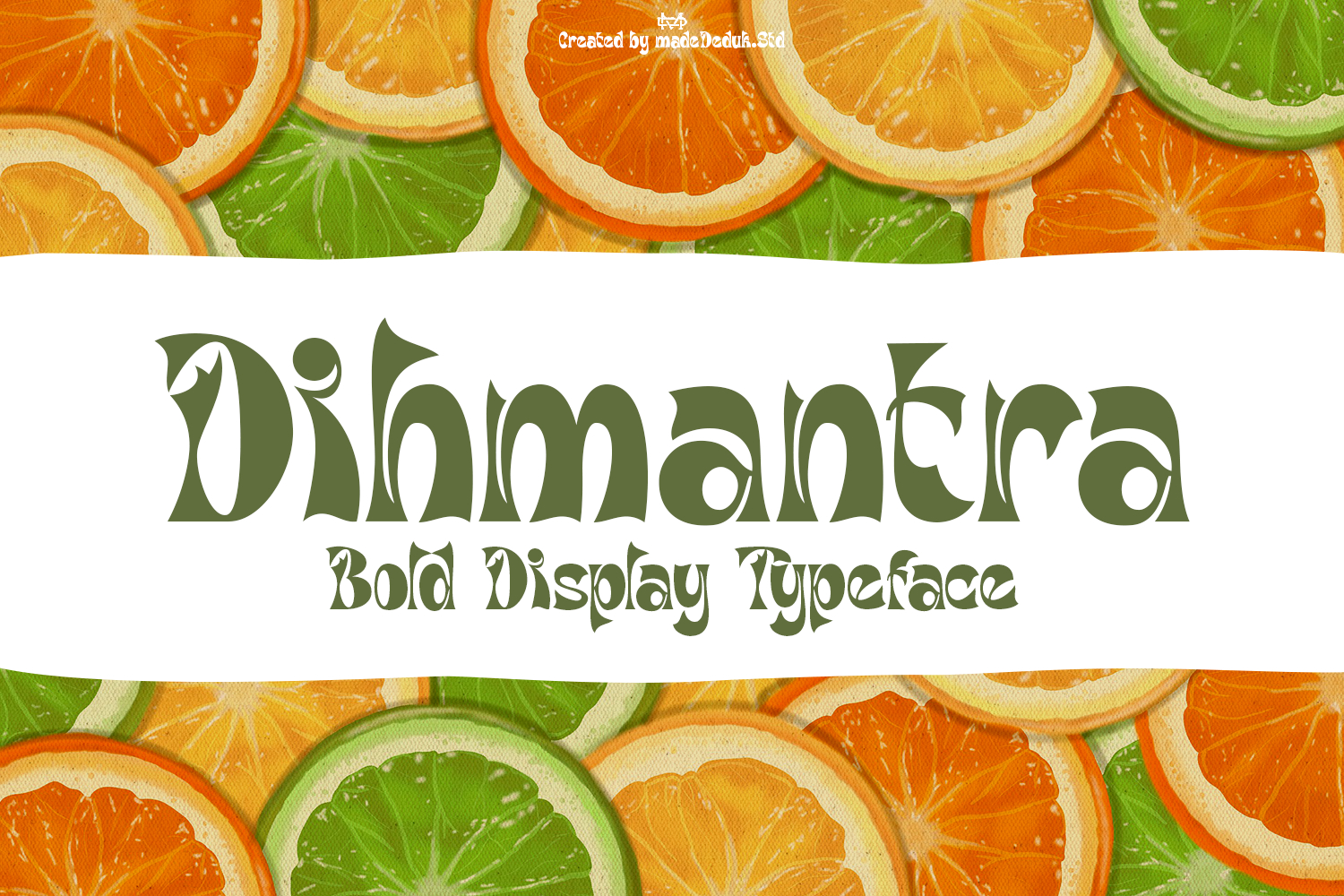
Dihmantra Bold Display Typeface
Introducing Dihmantra, a bold display typeface that features a unique style characterized by bold, curved, and textured letterforms, imparting an artistic and experimental feel. This font provides numerous alternates and ligatures, enhancing its versatility, making it suitable for creative projects that aim to stand out as unique, bold, and distinctive. Perfect for various advertising purposes, it is ideal for both digital content and printed materials, ensuring your designs capture attention and convey a memorable message.